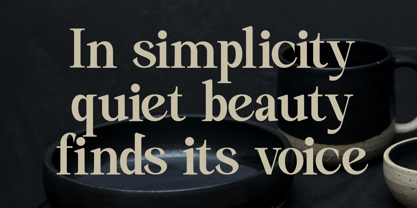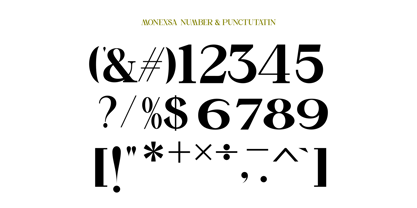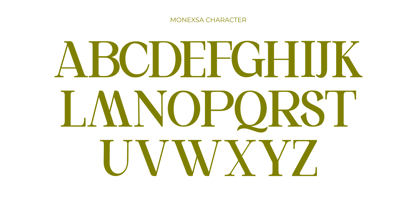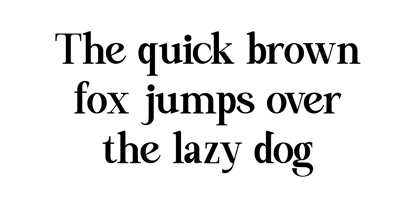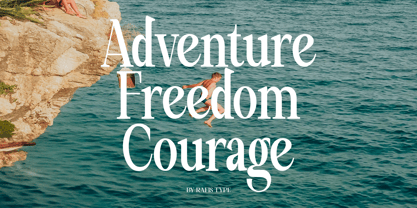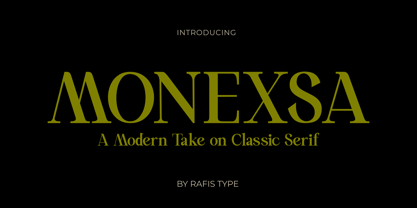
Monexsa
by Rafis Type
The Monexsa Font Family was designed by Agus Priono and published by Rafis Type. Monexsa contains 2 styles and family package options. More about this family
Monexsa is a modern sans-serif font that blends simplicity with a bold touch of elegance. Its clean, well-proportioned characters feature subtle details that create a professional and futuristic impression. Monexsa is perfectly suited for branding, logos, headlines, editorials, posters, and digital designs that require a minimal yet distinctive look. With a balance of strength and sophistication, Monexsa delivers a strong, modern, and memorable visual identity.
Designers: Agus Priono
Current Foundry: Rafis Type
About Rafis Type
Rafis Type is an independent type foundry dedicated to designing functional and expressive typefaces for modern visual communication. The foundry focuses on creating fonts that balance clear structure with distinctive character. Rafis Type develops typefaces for a wide range of applications, including branding, editorial design, digital media, and display use. Each project is crafted with attention to detail, consistency, and readability, ensuring dependable performance across print and screen environments. With a commitment to thoughtful design and continuous refinement, Rafis Type aims to provide designers with versatile, well-crafted fonts that support both creative expression and practical use.